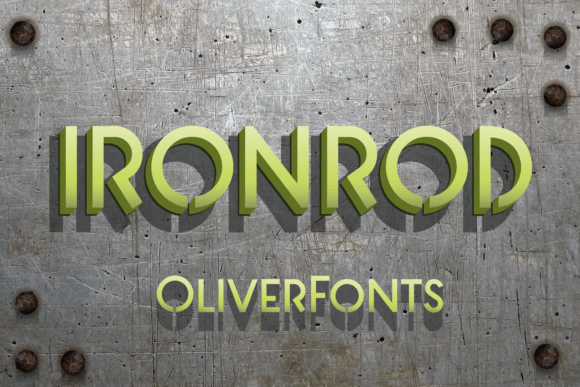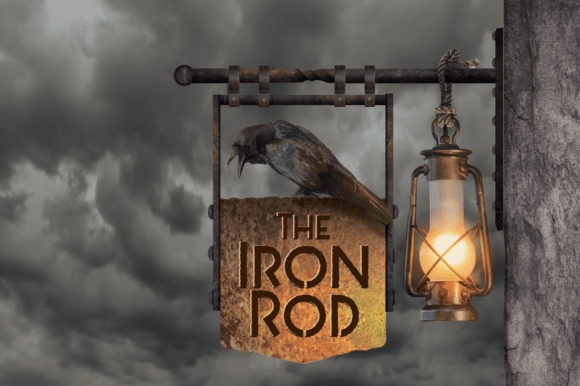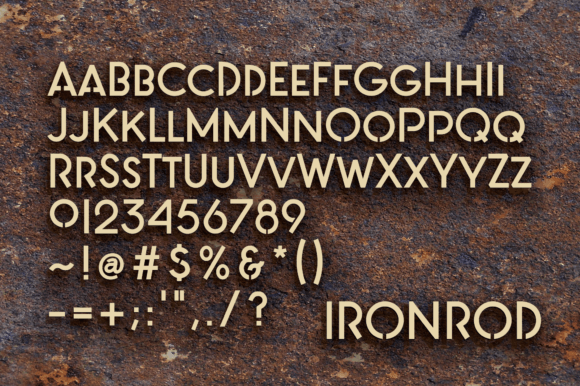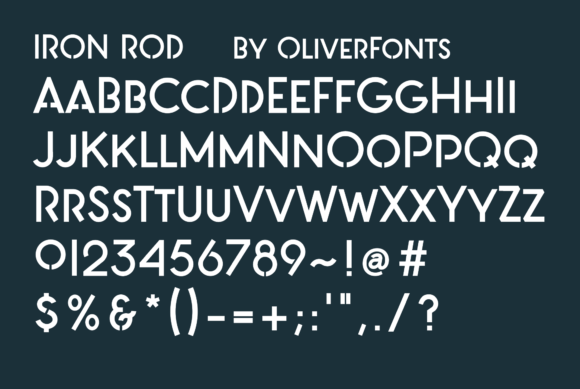
Ironrod Font: Bold Art Deco Display Font for Eye-Catching Logos
About the Ironrod Font
Unleash your creativity with Ironrod Font, a versatile font perfect for a wide range of applications. IronRod – this sans serif font, carefully crafted with a strong stencil and block style, with art deco influences, offers a bold, dynamic aesthetic perfect for any design requiring a robust, commanding presence.
IronRod excels in headlines, logos, and short, impactful text for branding and posters. Its strong geometry makes it ideal for packaging design, particularly for products emphasizing strength or luxury. However, its bold weight and relatively large x-height make it less suitable for body text or UI elements requiring high readability over extended lengths.
The font’s inherent boldness pairs well with more delicate scripts like Playfair Display for a touch of elegance or with geometric sans-serifs like Montserrat for a modern, balanced feel. A serif like Merriweather could also provide a complementary contrast, softening the starkness while retaining a sense of sophistication.
IronRod projects a powerful, modern, and slightly rebellious personality. It is best suited to brands seeking to convey authority, innovation, or a sense of confident masculinity.